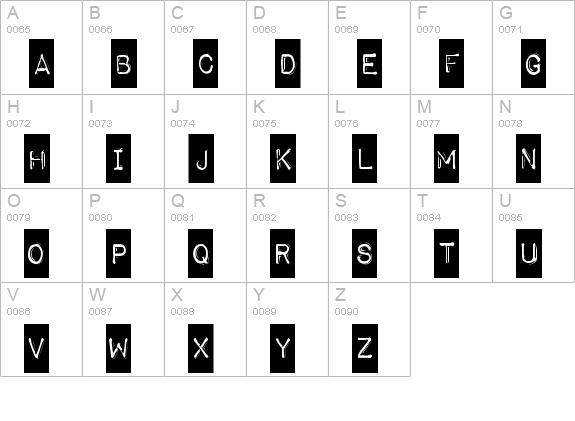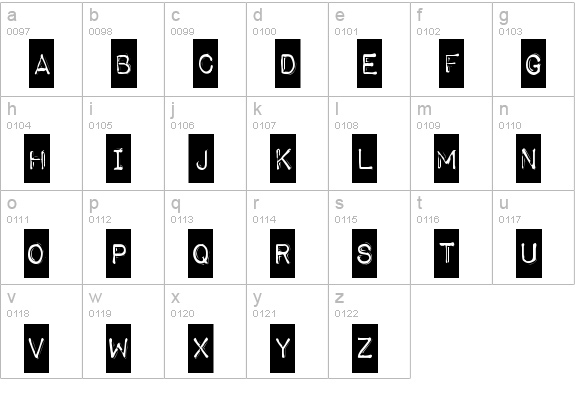
Impact Label Font Details
Impact Label font is a bold and eye-catching display typeface that exudes a sense of strength and impact. With its rugged and industrial appearance, this font is perfect for creating headlines, posters, and packaging designs that demand attention. The unique label-like design adds a touch of vintage charm to any project. What's even better is that Impact Label font is available for free download at FontsMarket.com. This means you can easily access this powerful font and use it in your creative projects without any cost. Don't miss out on the opportunity to enhance your designs with the impactful style of Impact Label font.